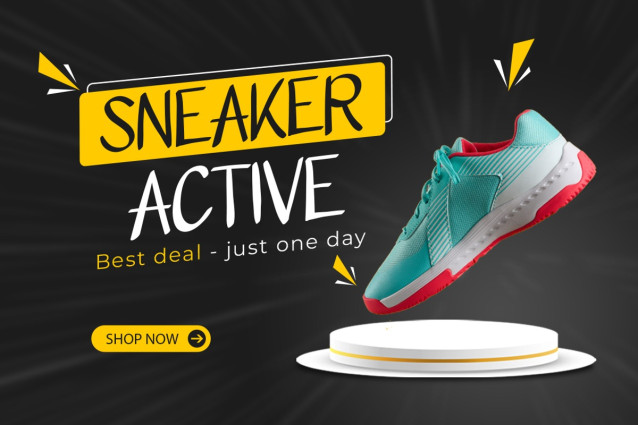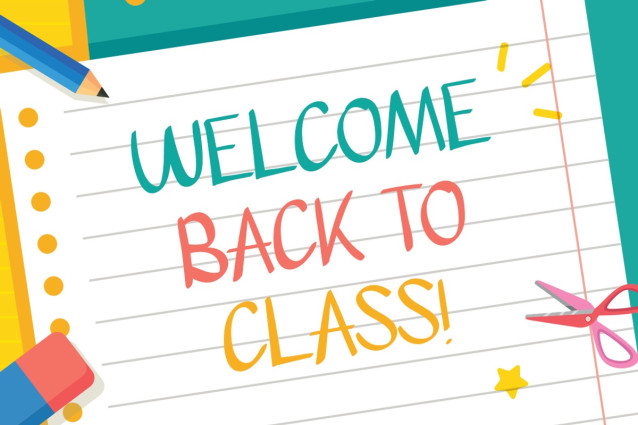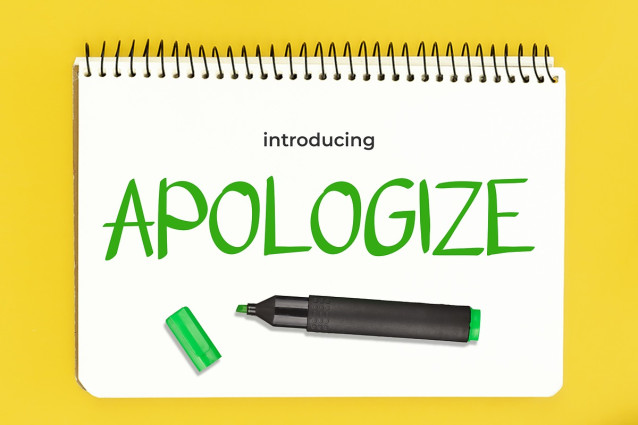
Apologize Font
Apologize Font offers a playful and captivating vibe. With its charming yet easily readable characters, this font is perfect for a variety of products or brands, from children’s toys to beauty products looking to convey a friendly and appealing message. So, don’t hesitate to let Apologize add a splash of happiness to your designs